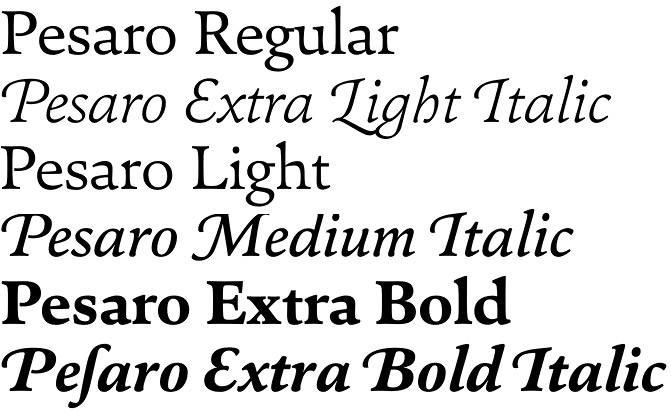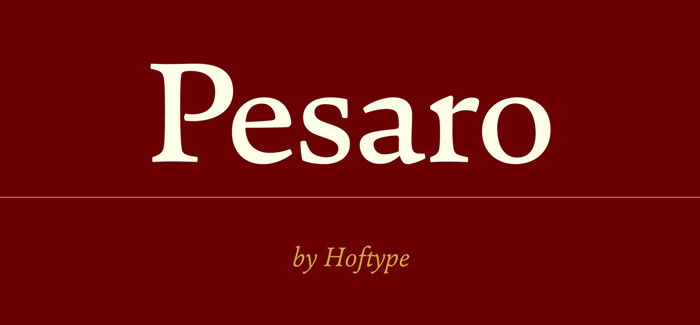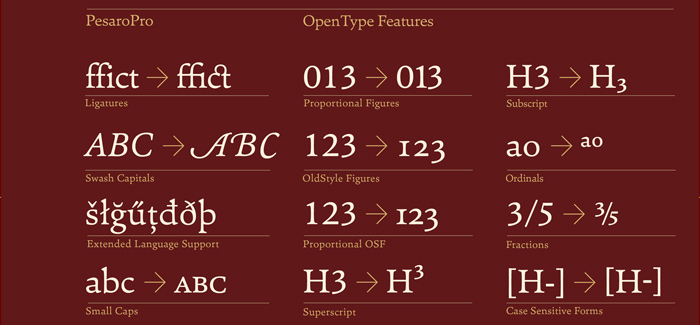
Pesaro font
Pesaro font by Dieter Hofrichter (Hoftype foundry) is a full-blooded typeface family, consisting of 12 fonts in six weights with their corresponding italics. Pesaro font is sharp, beautiful and elegant, inspired by the early Venetian engravers and type masters like Nicolas Jenson and Aldus Manutius, while following its own formal concept of a contemporary design – a stable typeface with strong text qualities and graphic appeal.
Pesaro font family comes in OpenType format with extended language support. All weights contain ligatures, proportional lining figures, tabular lining figures, proportional old style figures, lining old style figures, matching currency symbols, fraction- and scientific numerals and elegant swash capitals for all italic styles.